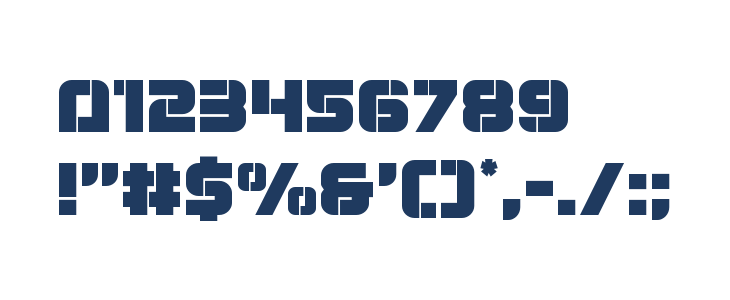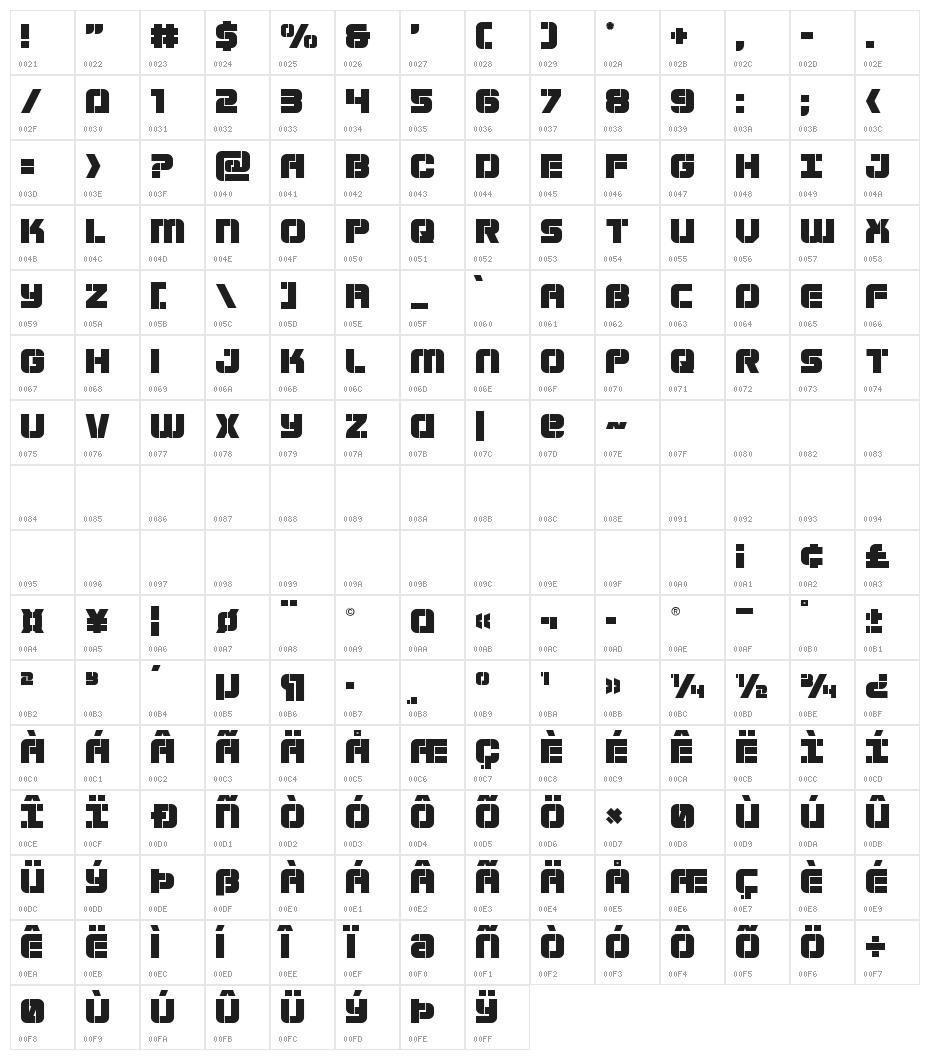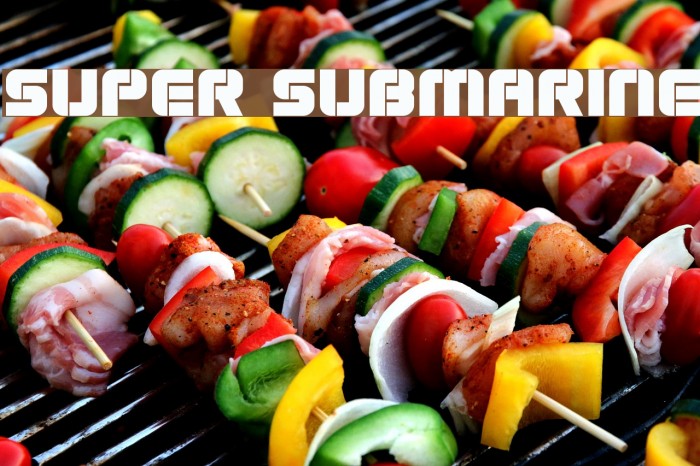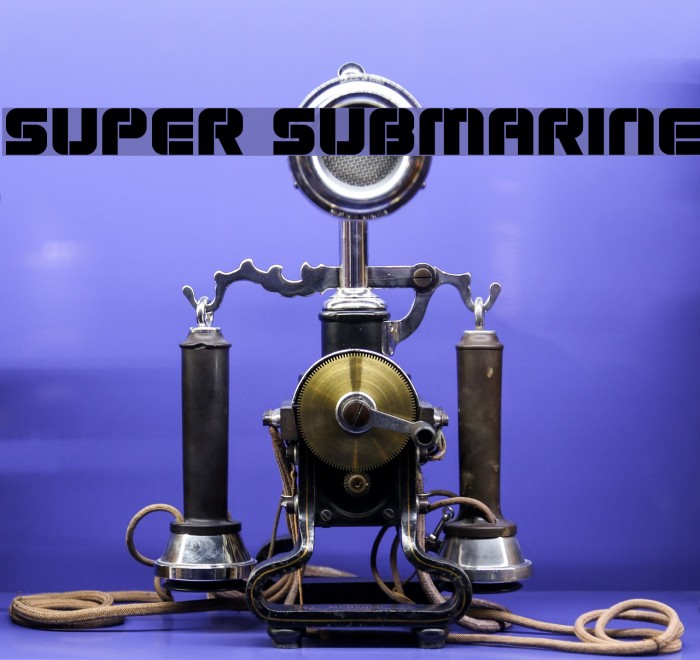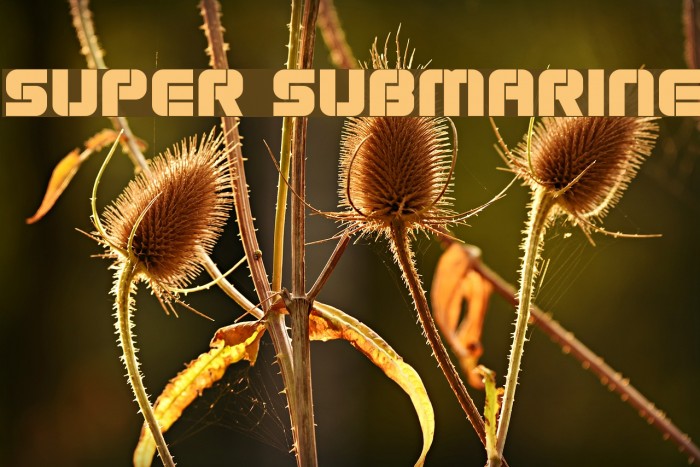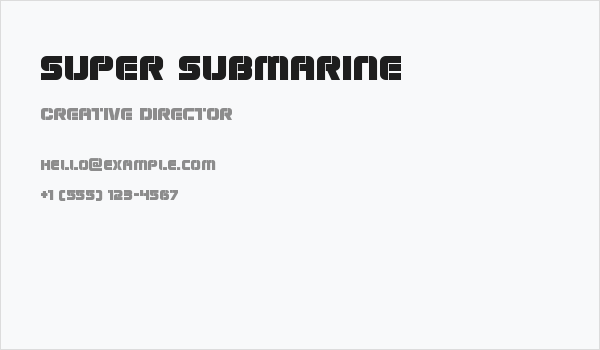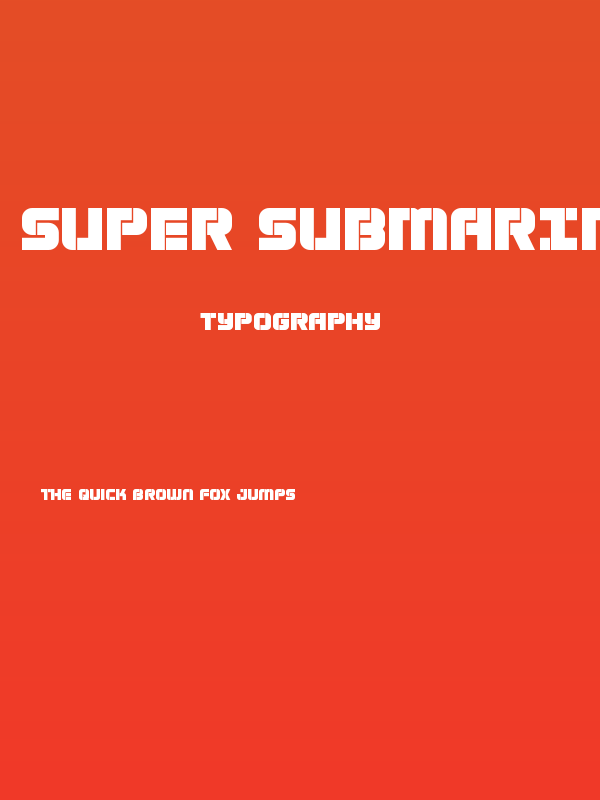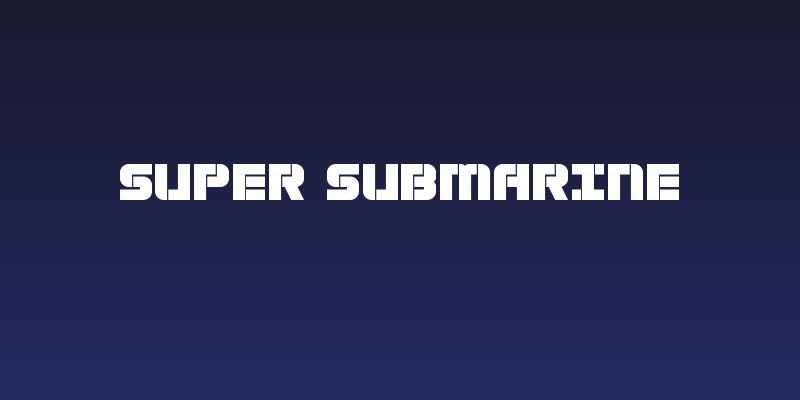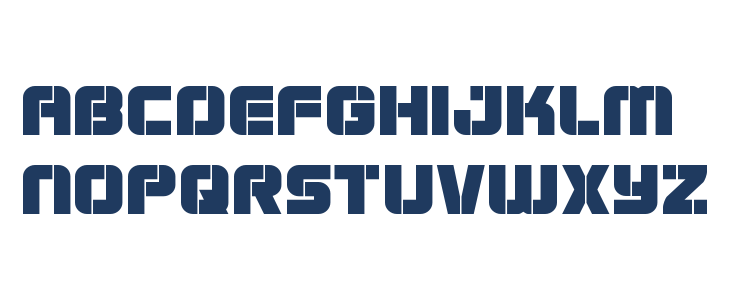
Super Submarine Font
Super Submarine Description
This font features a bold, geometric design with a futuristic and industrial feel. The characters are constructed with thick, block-like shapes, creating a strong and impactful presence. The use of negative space within the letters adds a unique, almost stencil-like quality, enhancing its modern aesthetic. The uniformity in stroke width across all characters contributes to a cohesive and structured appearance. This font is highly legible at larger sizes, making it ideal for attention-grabbing headlines or branding materials. Its distinctive style is both contemporary and versatile, suitable for projects that require a bold statement.